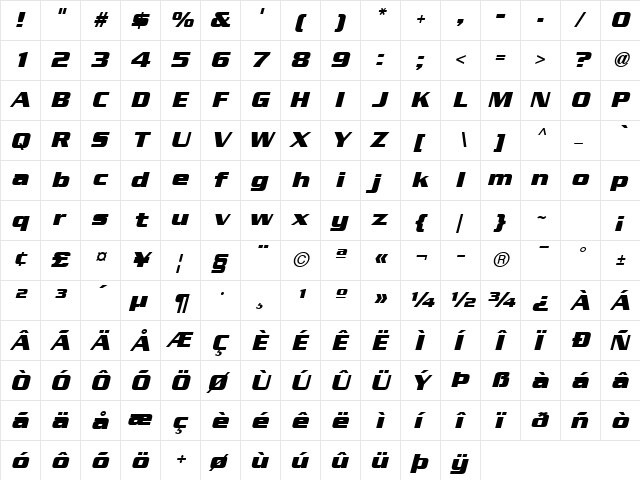
Serpentine Sans ICG BoldOblique Font Preview
Serpentine Sans ICG BoldOblique
Serpentine Sans ICG BoldOblique Font Details
Design Context for Serpentine Sans ICG Typeface
Serpentine Sans ICG takes a measured approach to typography — its balanced proportions and neutral character make it a reliable workhorse for both digital and print work. The dynamic lean of this cut emphasises speed and emphasis in any layout. Its bold stroke weight gives it real presence on the page.